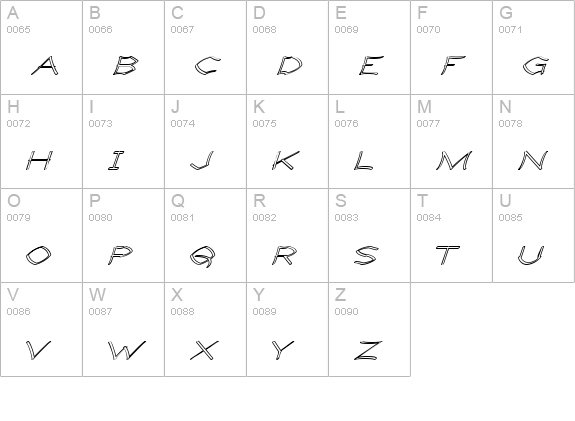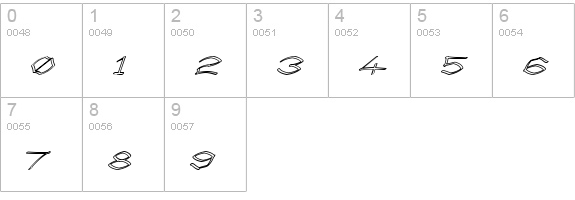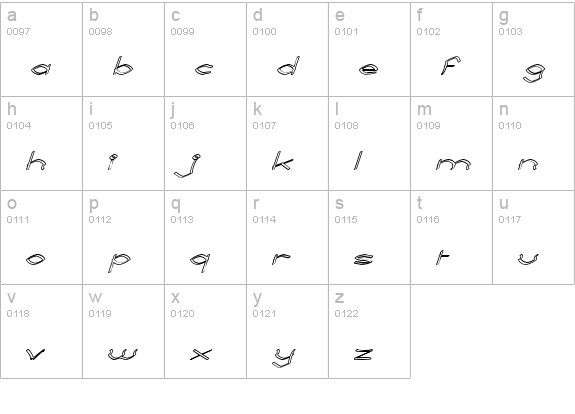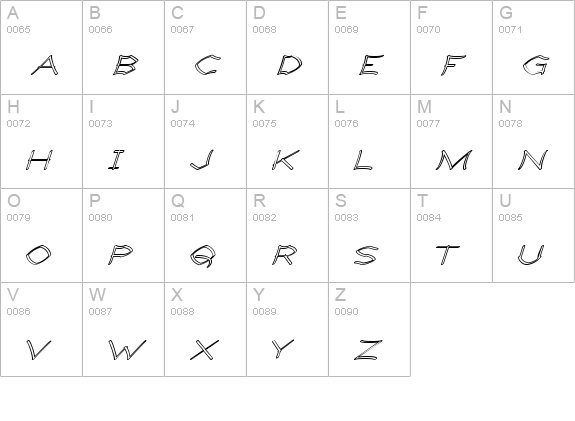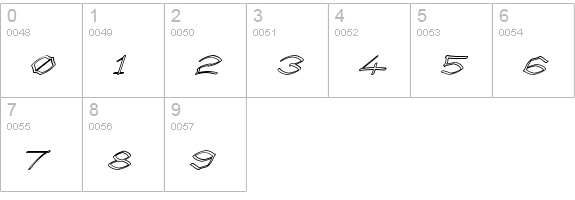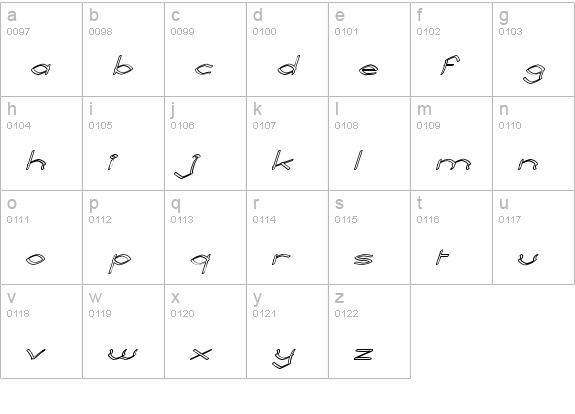
Llynfyrch Fwyrrdynn Ouline Font Details
The Llynfyrch Fwyrrdynn Ouline font is a charming and whimsical typeface that brings a touch of elegance and sophistication to any design project. With its delicate outlines and graceful curves, this font exudes a sense of creativity and style. Perfect for adding a unique flair to invitations, posters, logos, and more, the Llynfyrch Fwyrrdynn Ouline font is sure to make your designs stand out. Best of all, this stunning font is available for free download at FontsMarket.com. So whether you're a seasoned designer looking to add a fresh new font to your collection or a beginner searching for the perfect typeface for your latest project, the Llynfyrch Fwyrrdynn Ouline font is a fantastic choice. Don't miss out on the opportunity to enhance your designs with this beautiful and versatile font - download it for free today!